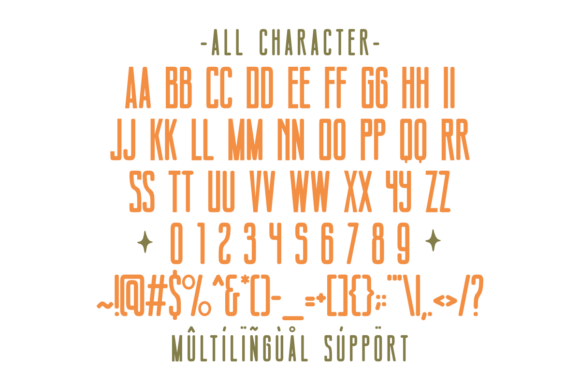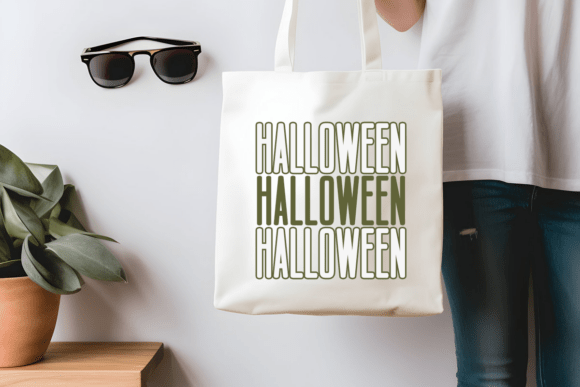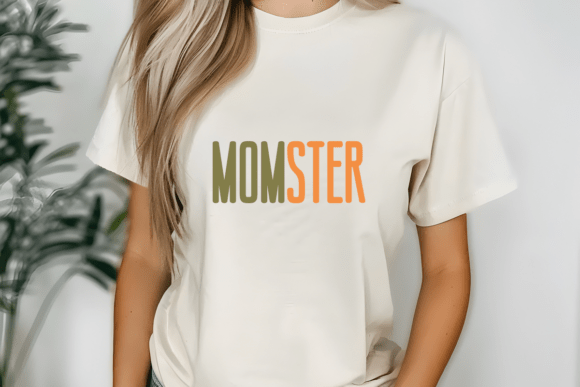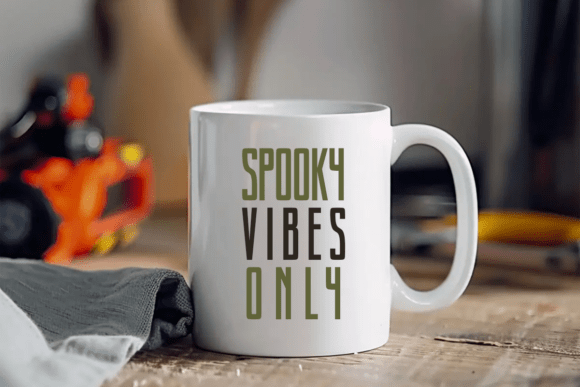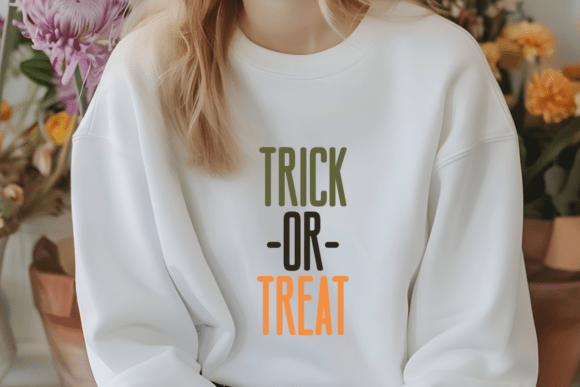
Introducing FunnySpooky Regular 1 Font: The Ultimate Halloween Display Font
Are you a designer or crafter looking for a font that will make your Halloween projects stand out? Look no further than FunnySpooky Regular 1 Font, a tall, playful display font that combines cute and creepy with a touch of charm. In this article, we’ll explore the features and benefits of this fantastic font, and how it can elevate your spooky creations to the next level.
A Font that Combines Cute and Creepy
FunnySpooky Regular 1 Font is the perfect blend of cute and creepy, making it ideal for Halloween projects that require a touch of whimsy and charm. Its clean yet quirky vibe is sure to capture the attention of your audience, whether you’re designing sarcastic Halloween quotes, quirky party invites, or bold sublimation prints.
Perfect for Cricut Vinyl Projects and More
This versatile font is perfect for a wide range of projects, including Cricut vinyl projects, POD shirts, digital downloads, and DIY Halloween crafts. Whether you’re designing mugs for your shop or ghostly decals for spooky season, FunnySpooky Regular 1 Font keeps it festive, fun, and fang-tastic.
- Halloween-themed: This font is specifically designed for Halloween projects, making it perfect for spooky season.
- Cute and Creepy: The font combines cute and creepy elements, making it ideal for projects that require a touch of whimsy and charm.
- Clean and Quirky: The font has a clean yet quirky vibe, making it perfect for a wide range of projects.
- Versatile: FunnySpooky Regular 1 Font is perfect for Cricut vinyl projects, POD shirts, digital downloads, DIY Halloween crafts, and more.
Ideal for:
- Halloween SVGs: Use FunnySpooky Regular 1 Font to create spooky SVGs for your Halloween projects.
- Cricut Projects: This font is perfect for Cricut vinyl projects, including Halloween decorations, signs, and more.
- Spooky Shirts: Design bold and eye-catching Halloween shirts with FunnySpooky Regular 1 Font.
- Sublimation Mugs: Create festive and fun sublimation mugs for Halloween with this fantastic font.
- Cute Halloween Decor: Use FunnySpooky Regular 1 Font to create cute and spooky Halloween decor, including signs, banners, and more.
- Etsy Printables: This font is perfect for creating Halloween printables, including party invitations, decorations, and more.
- Themed Party Invitations: Design spooky and fun party invitations with FunnySpooky Regular 1 Font.
Tips and Tricks for Using FunnySpooky Regular 1 Font
Here are some tips and tricks for getting the most out of FunnySpooky Regular 1 Font:
- Experiment with different colors: Try out different colors and color combinations to create a unique and eye-catching look.
- Play with font sizes: Experiment with different font sizes to create visual interest and hierarchy.
- Add graphics and images: Combine FunnySpooky Regular 1 Font with graphics and images to create a spooky and fun design.
- Use it for DIY projects: Use FunnySpooky Regular 1 Font for DIY projects, including handmade cards, gift tags, and more.
FunnySpooky Regular 1 Font is a fantastic font that is perfect for designers and crafters looking to create spooky and fun Halloween projects. With its clean yet quirky vibe, cute and creepy elements, and support for PUA encoding, this font is sure to elevate your designs to the next level. Whether you’re designing Halloween SVGs, Cricut projects, spooky shirts, or sublimation mugs, FunnySpooky Regular 1 Font is the perfect choice.